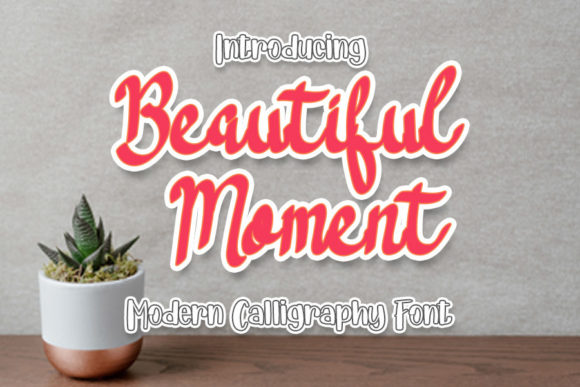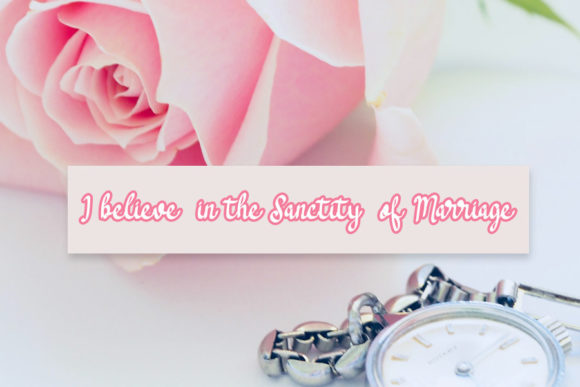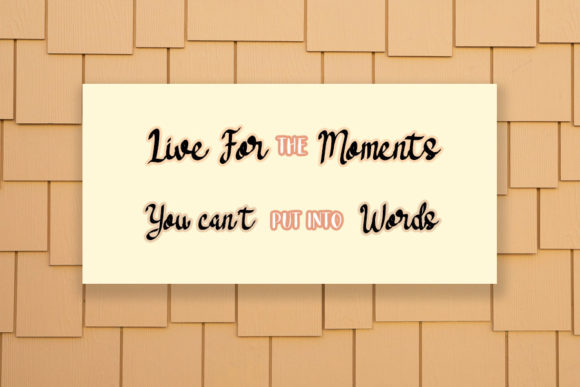
About Beautiful Moment Font
Beautiful Moment is a chic and refined script font that exudes sophistication and elegance. With its stylish alternates and ligatures, this font is the perfect choice for any project.
The graceful curves and flowing lines of Beautiful Moment give it a sense of timeless beauty. Whether you’re designing a luxurious brand logo, creating elegant wedding invitations, or crafting a high-end product packaging, this font will elevate your project to new levels of sophistication.
The stylish alternates and ligatures of Beautiful Moment add versatility and uniqueness to your designs. They allow you to create custom letter combinations and flourishes, adding a personalized touch that sets your work apart. Each character is meticulously crafted to ensure a harmonious and visually pleasing result.
Immerse yourself in the refined ambiance that Beautiful Moment creates. Its elegant presence transforms ordinary text into a statement of class and taste. Whether used in print or digital mediums, this font shines with its inherent beauty.
Embrace the elegance of Beautiful Moment and let it enhance your projects with its sophisticated charm. Whether you’re working on a fashion brand, an upscale event invitation, or a premium product label, this font will be the perfect match for your vision.
So, indulge in the allure of Beautiful Moment and watch as your designs radiate sophistication and elegance. Let this font be your partner in creating stunning and memorable creations that leave a lasting impression.